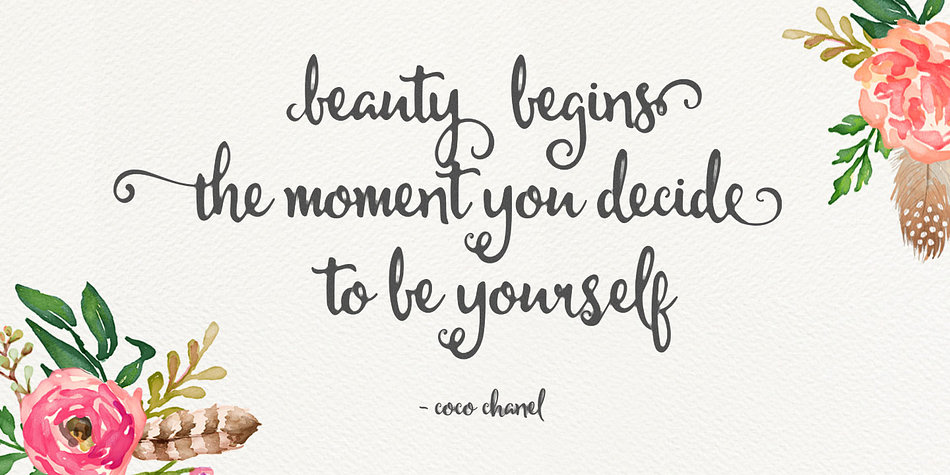
Michael
Michael is a dingbat, script and modern calligraphy font family. This typeface has two styles and was published by mysunday.
Michael is a handmade script font cooked with feeling.
It includes tons of glyphs, alternates, and ligatures.
This family can be used for various purposes: headlines, signatures, logos, wedding invitations, T-shirts, signage, labels, posters, badges etc.
Michael is a handmade script font cooked with feeling. It includes tons of glyphs, alternates, and ligatures. This family can be used for various purposes: headlines, signatures, logos, wedding invitations, T-shirts, signage, labels, posters, badges etc.